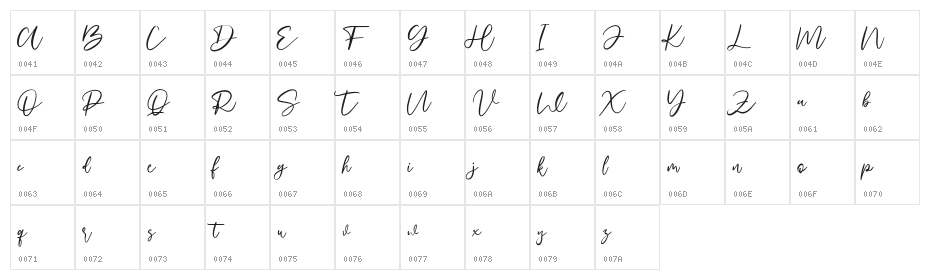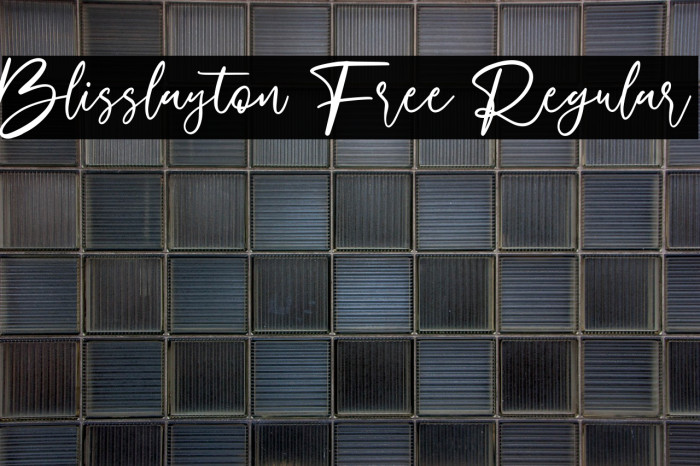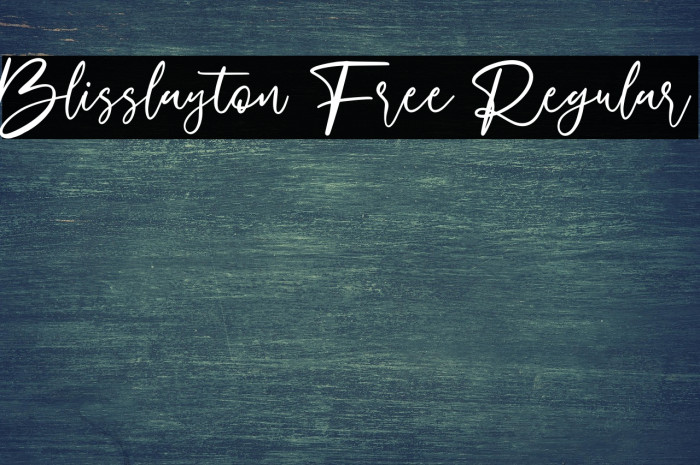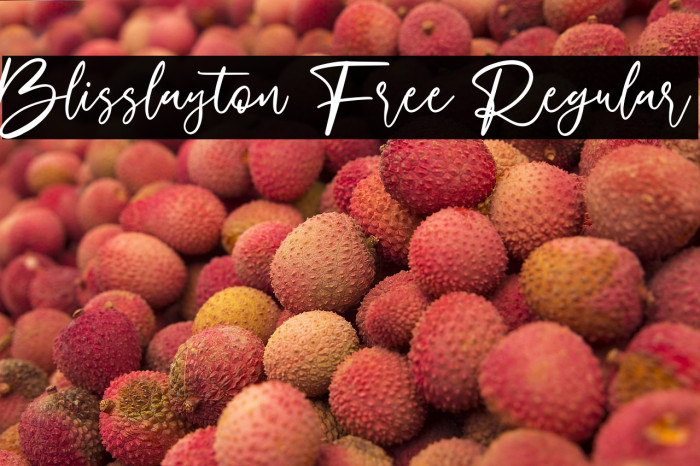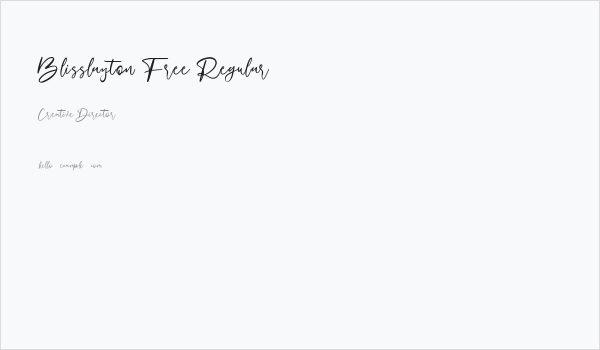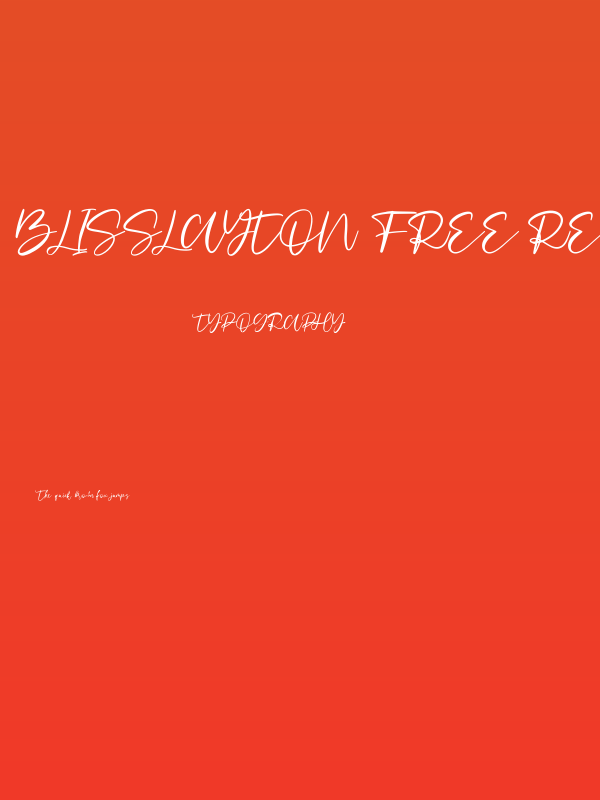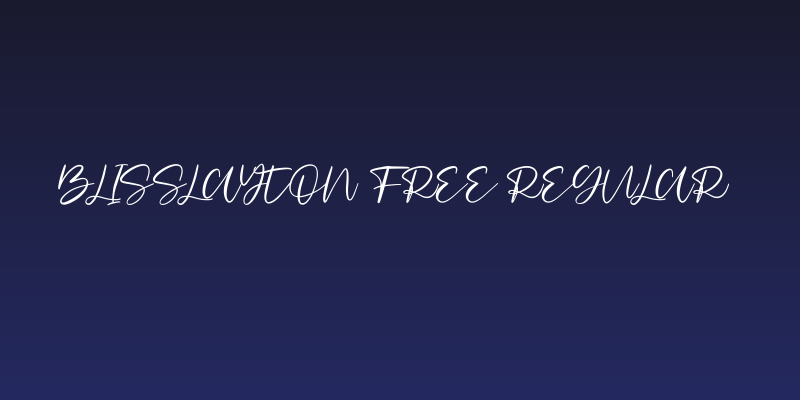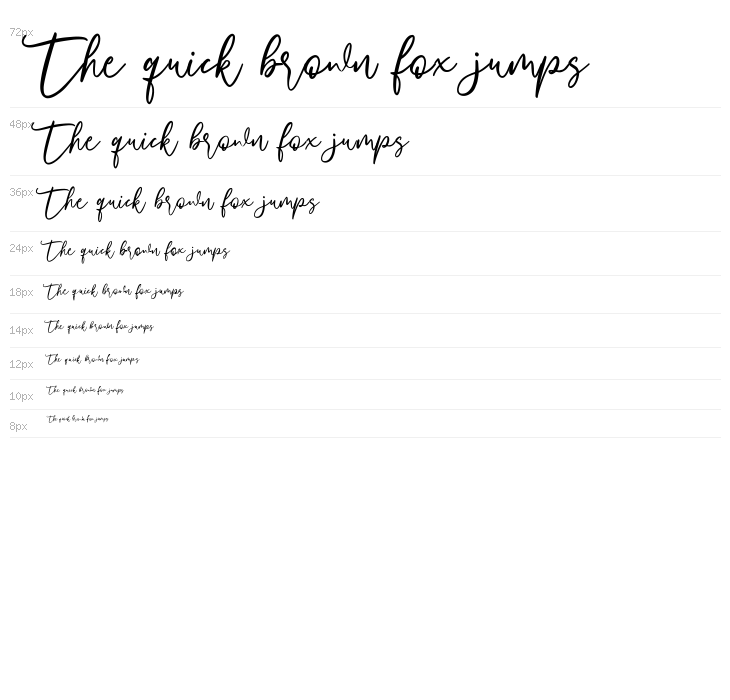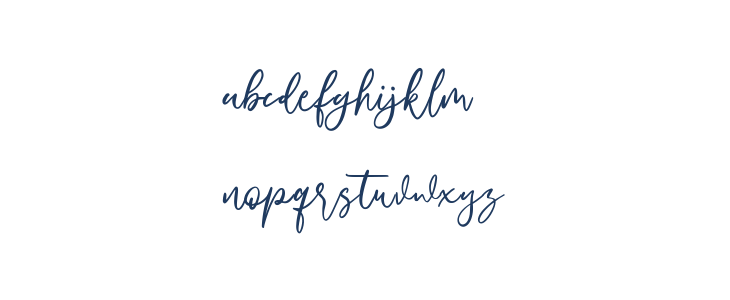
Blisslayton Free Regular Font
Blisslayton Free Regular Description
This font features an elegant and flowing script style, characterized by its smooth, cursive letterforms that mimic natural handwriting. The uppercase letters are bold and slightly slanted, adding a dynamic and sophisticated touch. The lowercase letters maintain a consistent flow, with some characters extending below the baseline, enhancing its handwritten appeal. The overall design is both stylish and legible, making it suitable for a variety of creative applications. The font's fluidity and grace make it ideal for projects that require a personal and artistic touch.
| Proposed Projects | Ideal for wedding invitations, greeting cards, branding, and social media graphics. |